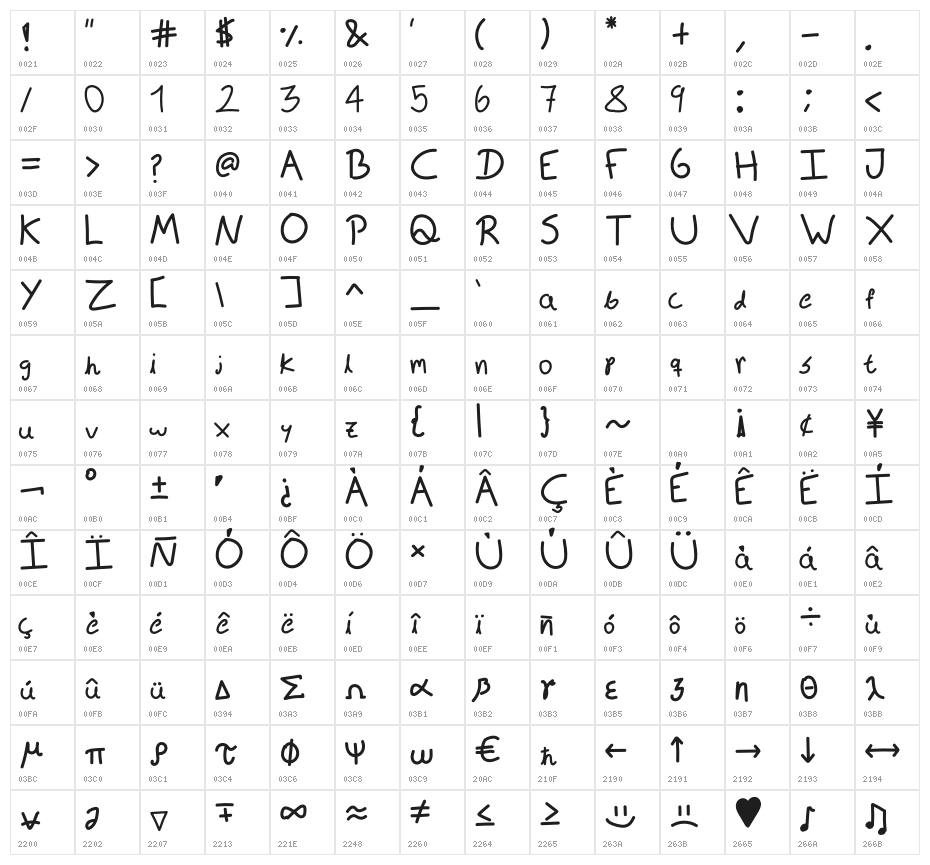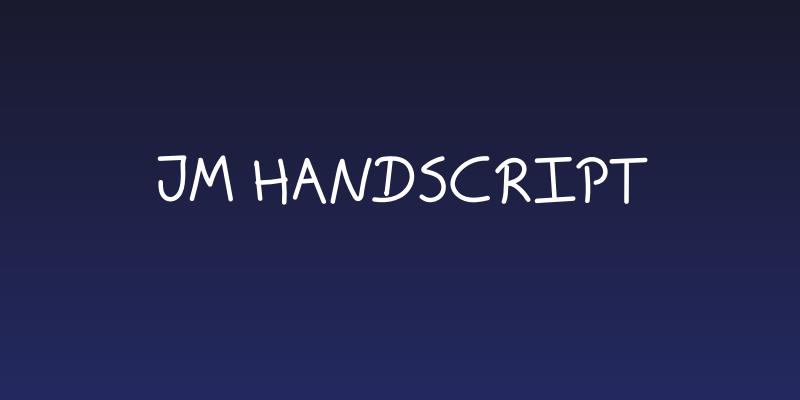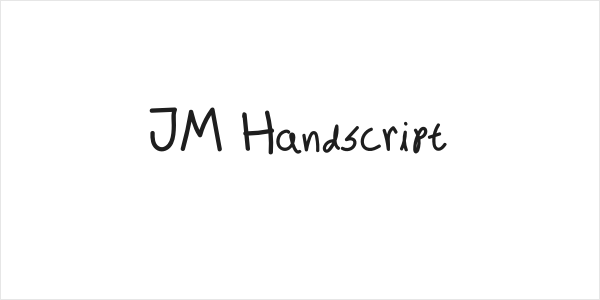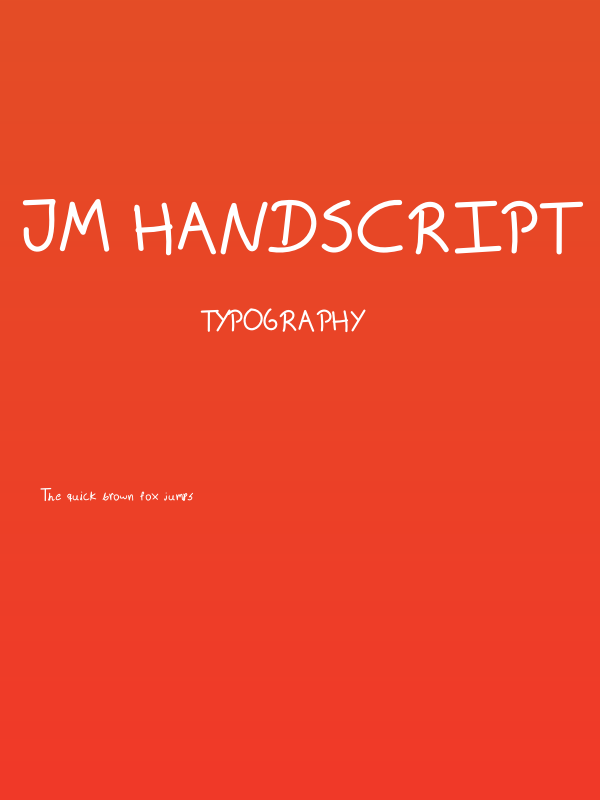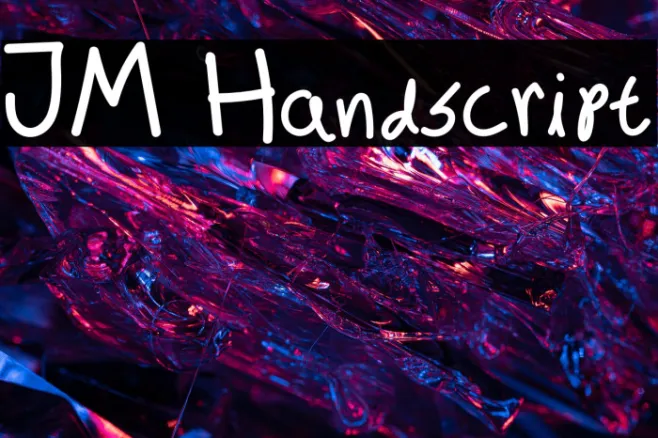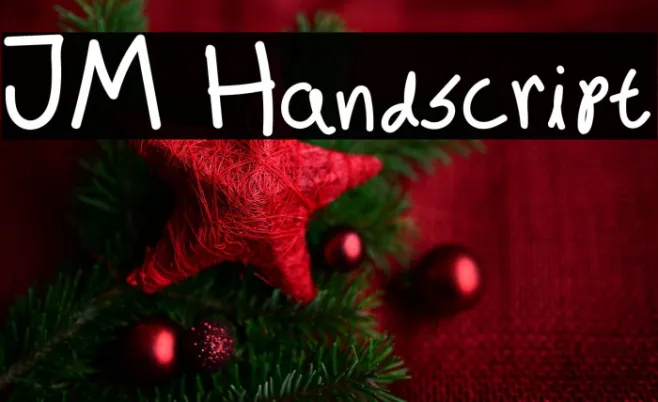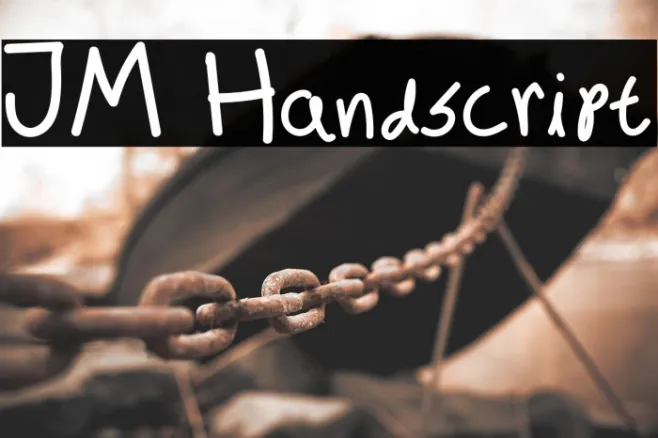
JM Handscript Font
JM Handscript Description
A playful handwritten font with a casual and informal style, featuring smooth curves and a personal touch.
| Use Case | Informal text, Personal projects |
| Proposed Projects | Greeting cards, personal notes, informal invitations. |